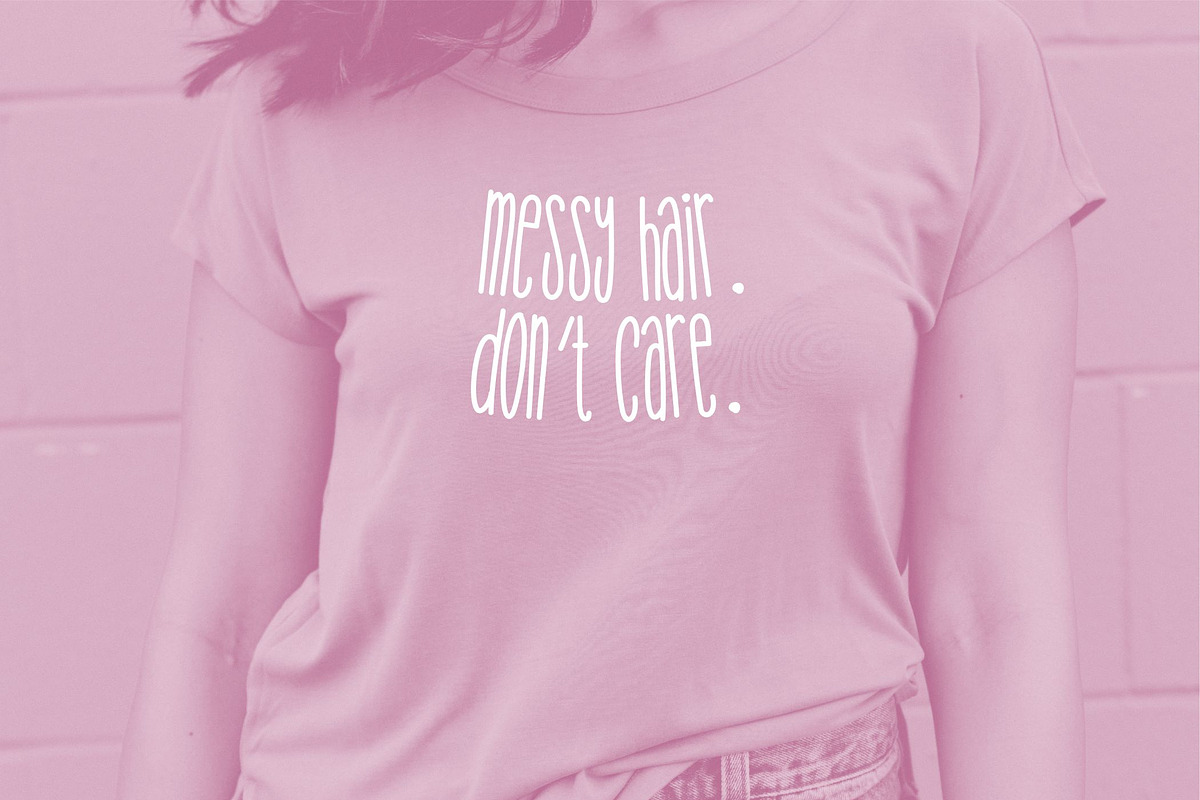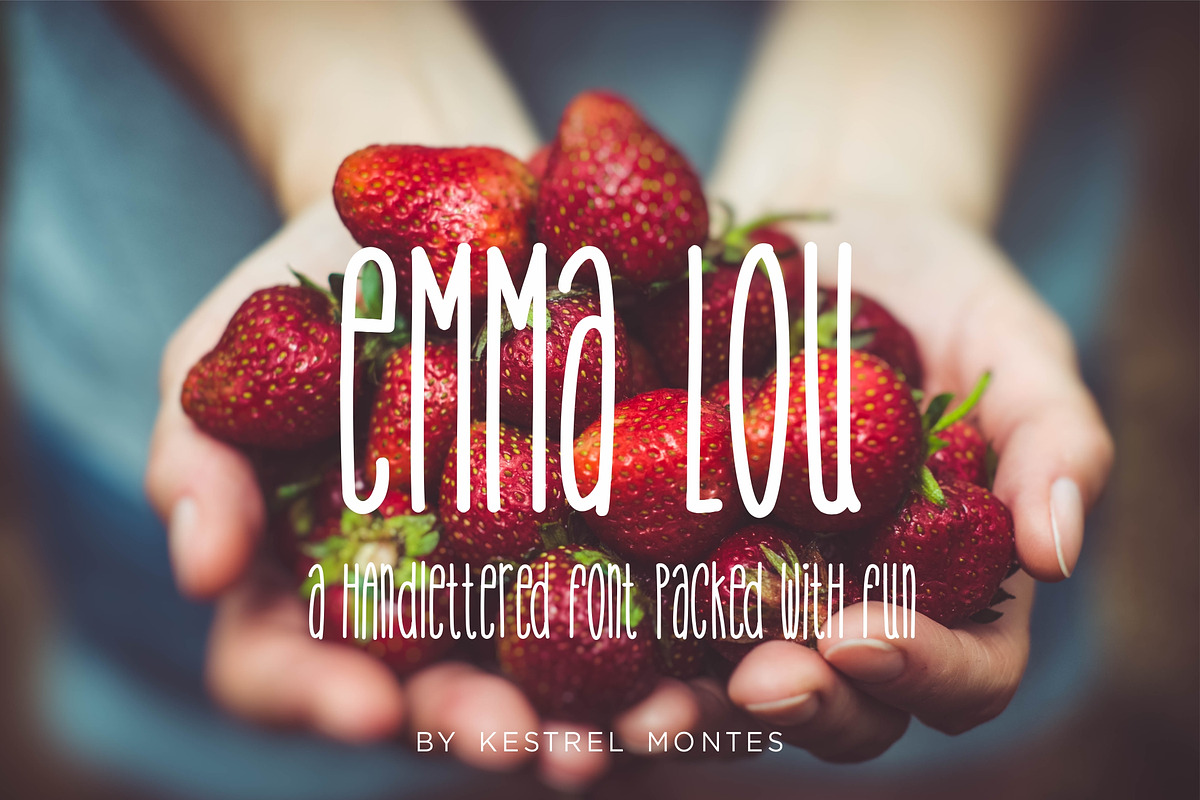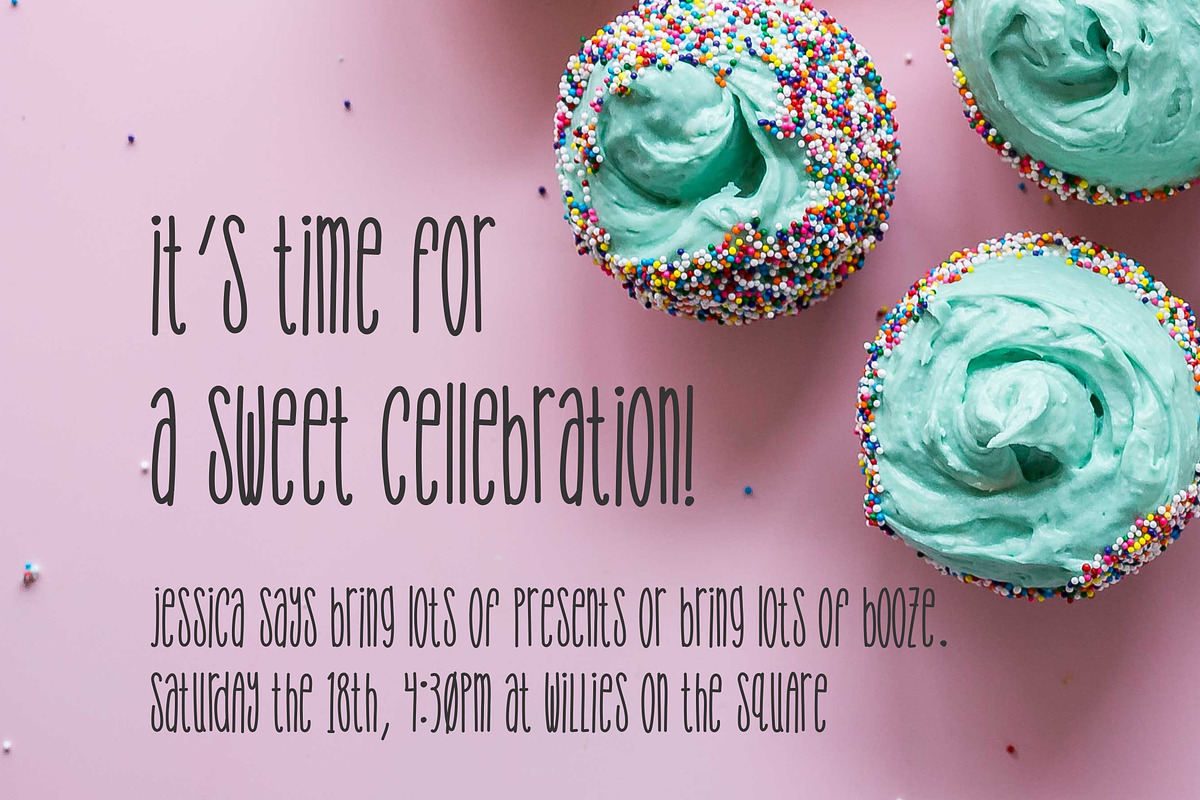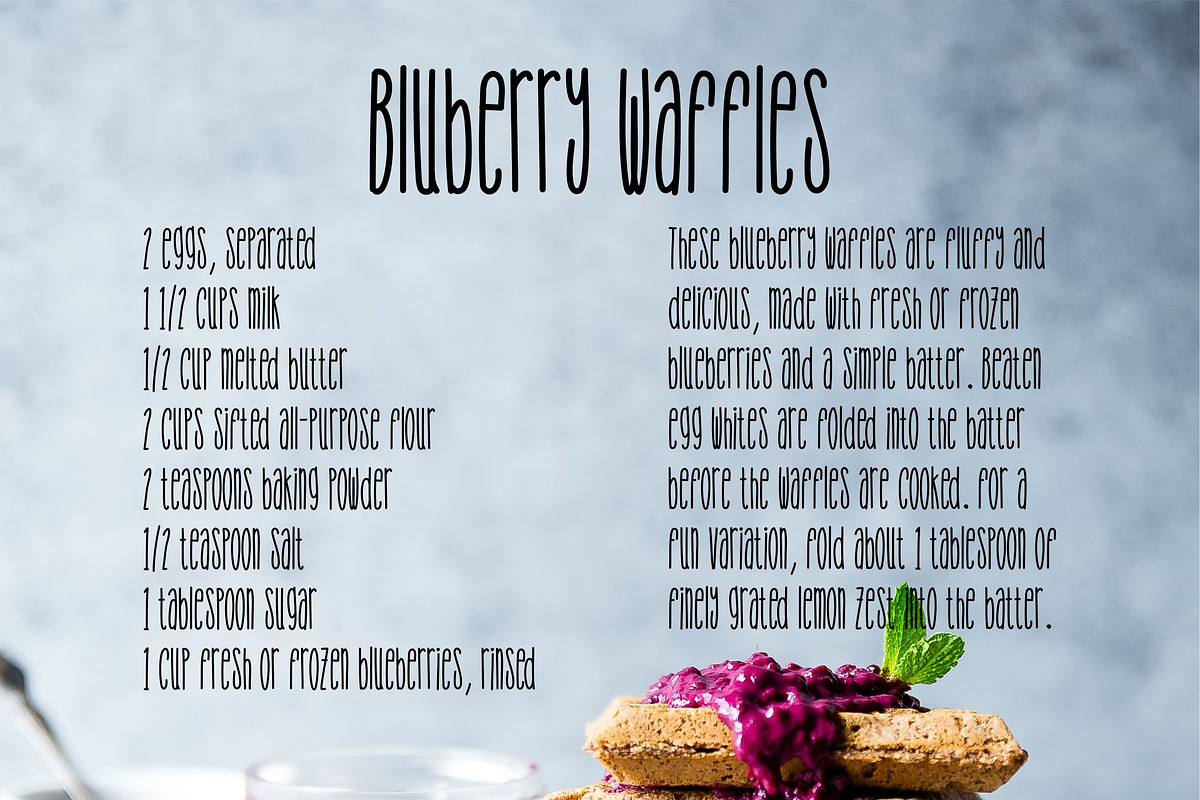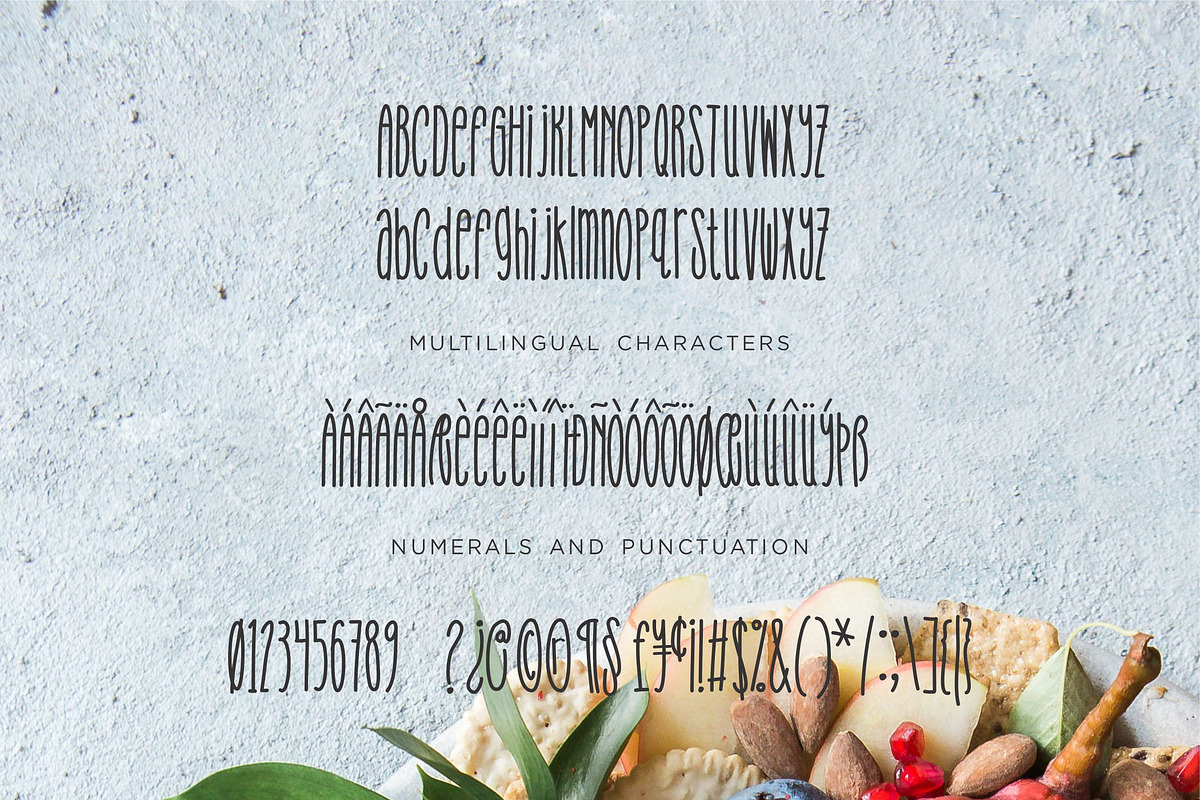
Emma Lou By Kestrel Montes
Emma Lou by Kestrel Montes is happy and perky modern hand lettered print font. It's sure to put a smile on your face and brighten any project!
• 188 characters including lots of multilingual characters and punctuation
Emma Lou By Kestrel Montes by Kestrel Montes, a Sans Serif Font by INKMETHIS fits naturally into Branding, posters, packaging, typography.